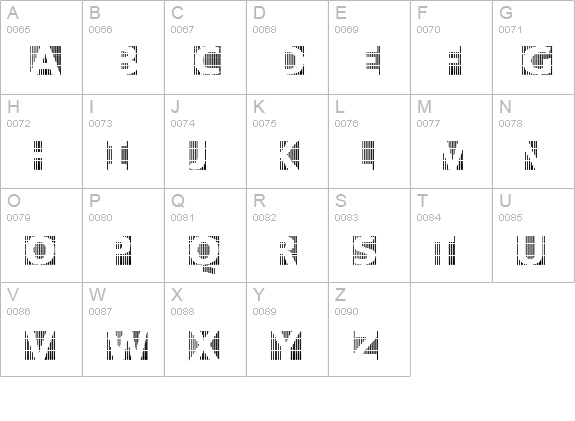
BlackWhiteGridsA Font Details
Introducing BlackWhiteGridsA font, a unique and versatile typeface that combines modern design elements with a touch of elegance. This font features a striking contrast between black and white grids, creating a visually captivating appearance that is sure to make your designs stand out. BlackWhiteGridsA font is perfect for a wide range of projects, from branding and marketing materials to social media graphics and website design. Its clean lines and geometric shapes give it a contemporary and sophisticated look that will appeal to a variety of audiences. What's even better is that BlackWhiteGridsA font is completely free to download at FontsMarket.com. Whether you're a seasoned designer looking to add a fresh new font to your collection or a beginner looking to experiment with typography, this font is a must-have for your toolkit. Don't miss out on the opportunity to enhance your projects with the sleek and stylish BlackWhiteGridsA font today!